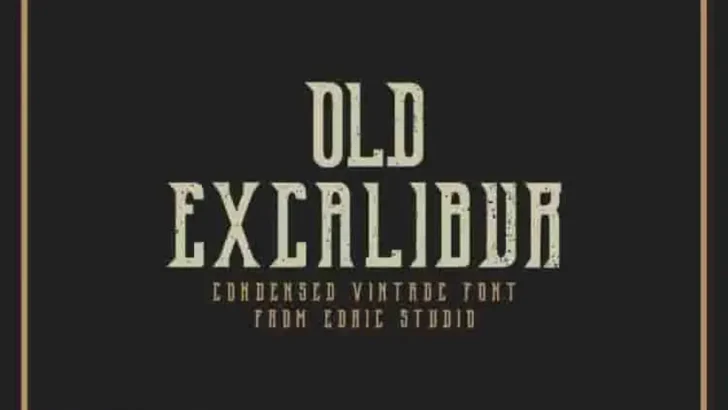
OldExcalibur Modern Sans Serif Fonts
OldExcalibur! This is a new vintage sans typeface. It has a fresh, elegant, unique and stylish glyph from EdricStudio